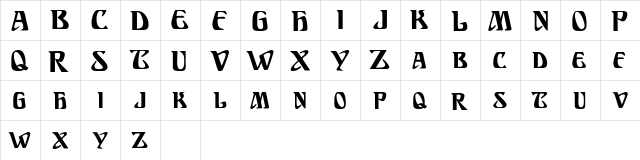
MysticSCapsSSK Bold
MysticSCapsSSK is a composed and adaptable typeface that performs quietly and consistently across a wide range of design contexts. Its bold stroke weight gives it real presence on the page.